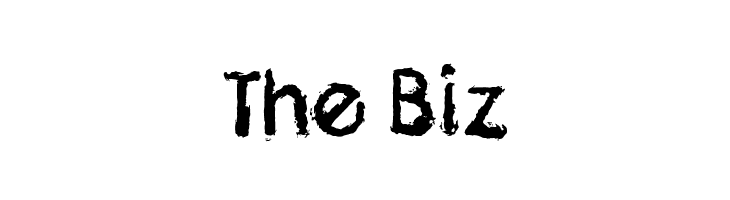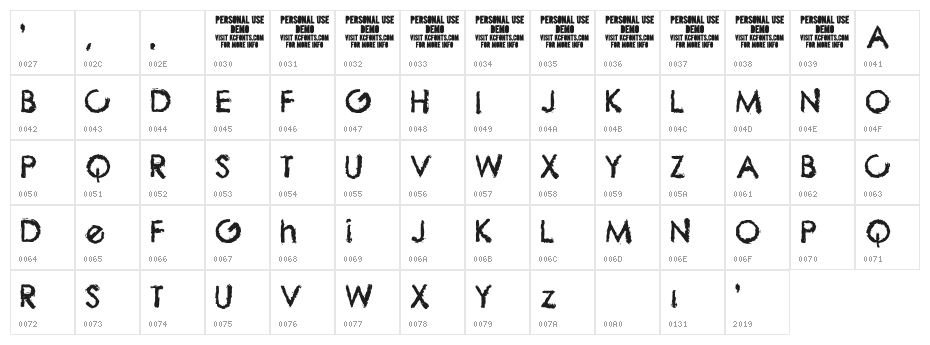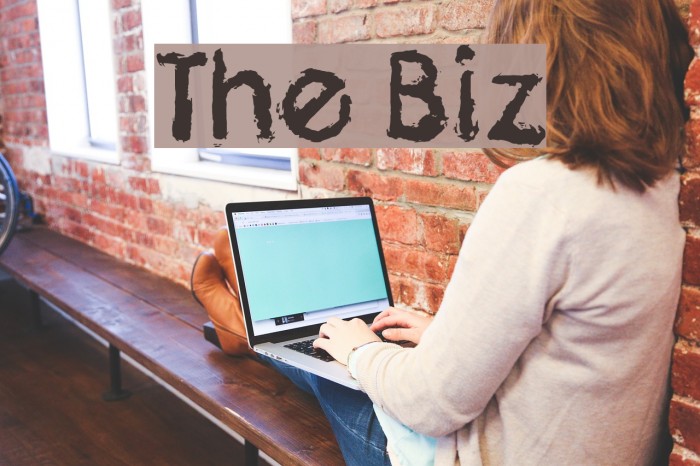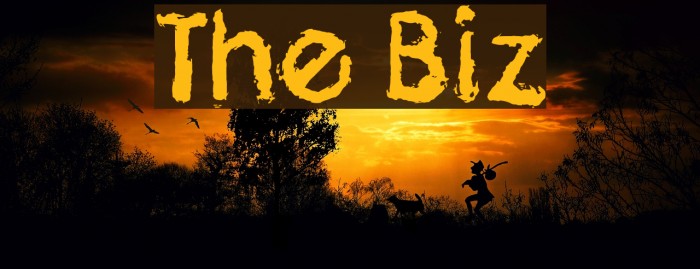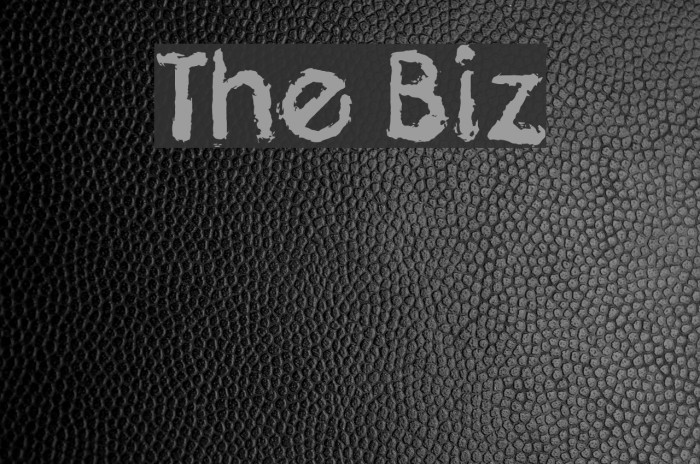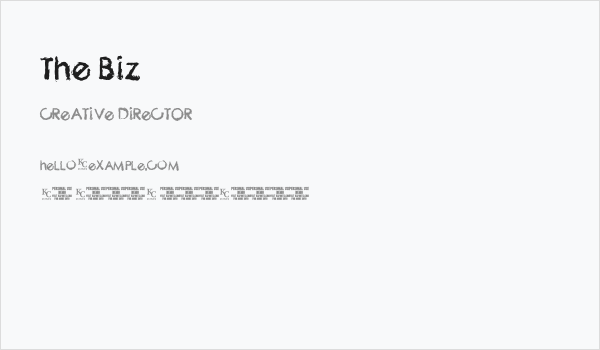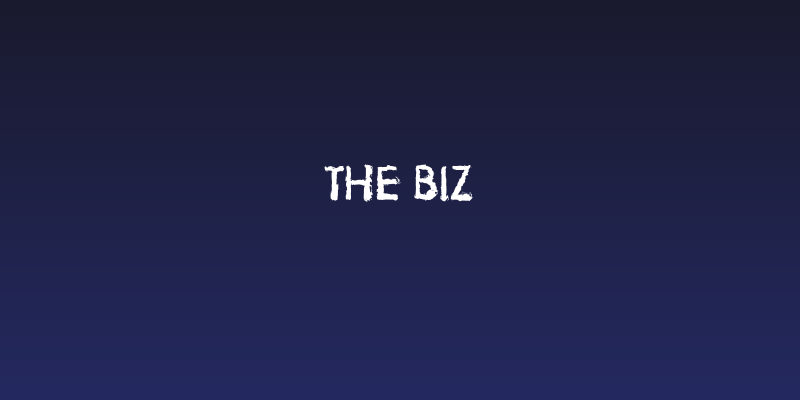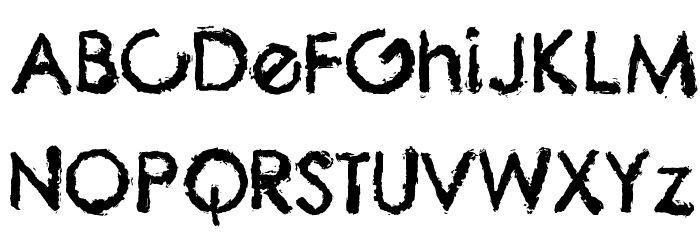
The Biz Font
The Biz Description
This font features a bold and distressed style, with a rough, textured appearance that gives it a hand-painted look. The characters have an uneven, organic quality, with varying stroke thicknesses and irregular edges, creating a dynamic and energetic feel. The uppercase and lowercase letters maintain a consistent style, while the numbers and special characters complement the overall aesthetic. This font's unique design makes it stand out, adding a touch of creativity and personality to any project.
| Proposed Projects | Ideal for posters, album covers, branding, and any project requiring a bold, artistic touch. |